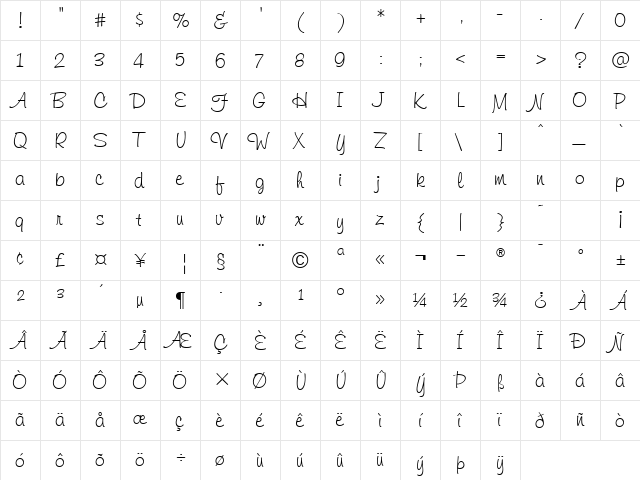
Kayleigh Regular
Design Context for Kayleigh Typeface
Kayleigh is a composed and adaptable typeface that performs quietly and consistently across a wide range of design contexts.